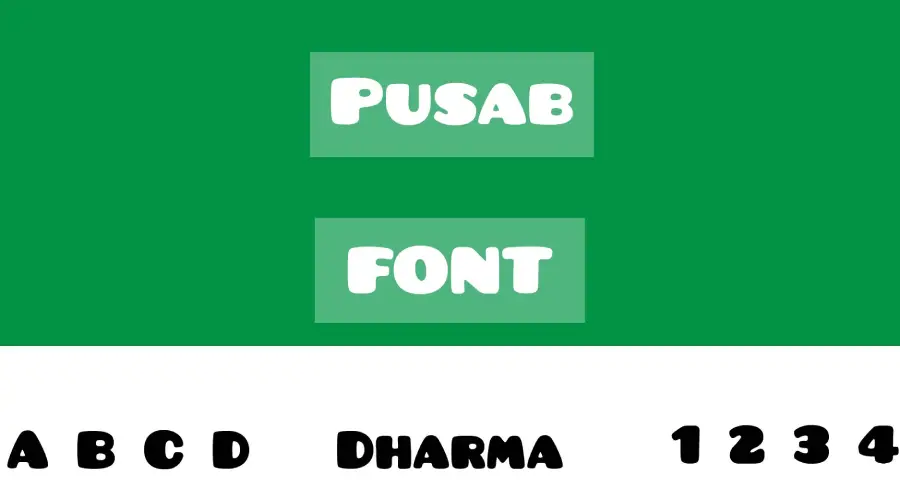
Pusab font is a modern geometric sans-serif typeface designed by Ryoichi Tsunekawa and published by Dharma Type, a company located in Japan in 2005. This font is an excellent choice for designers looking for a versatile and modern font.
Tsunekawa studied architecture and engineering at Nagoya University and has always been interested in fonts. He is particularly interested in how typeface design intersects with historical design trends like De Stijl, Arts and Crafts, Art Deco, Modernism, and Bauhaus. After working as an architectural engineer and freelance graphic designer, Tsunekawa founded Dharma Type.
Pusab font is fun and quirky and can add humor and personality to your designs. It is a free font that you can use for various projects, such as logos, posters, flyers, banners, invitations, cards, stickers, and more. You can use our Pusab font generator to check it out and download it for free!